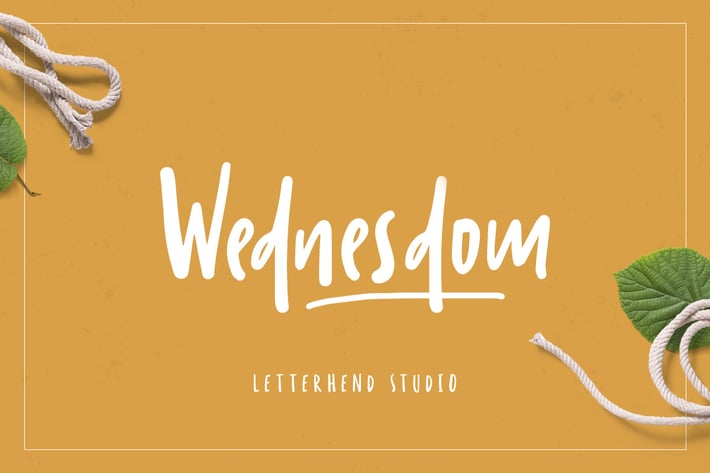
Wednesdom – Playful Font
Wednesdom is a playful font that you can use for many things. Perfect for cute quote, branding, and anything. This font also including number, symbol, and support multi language!